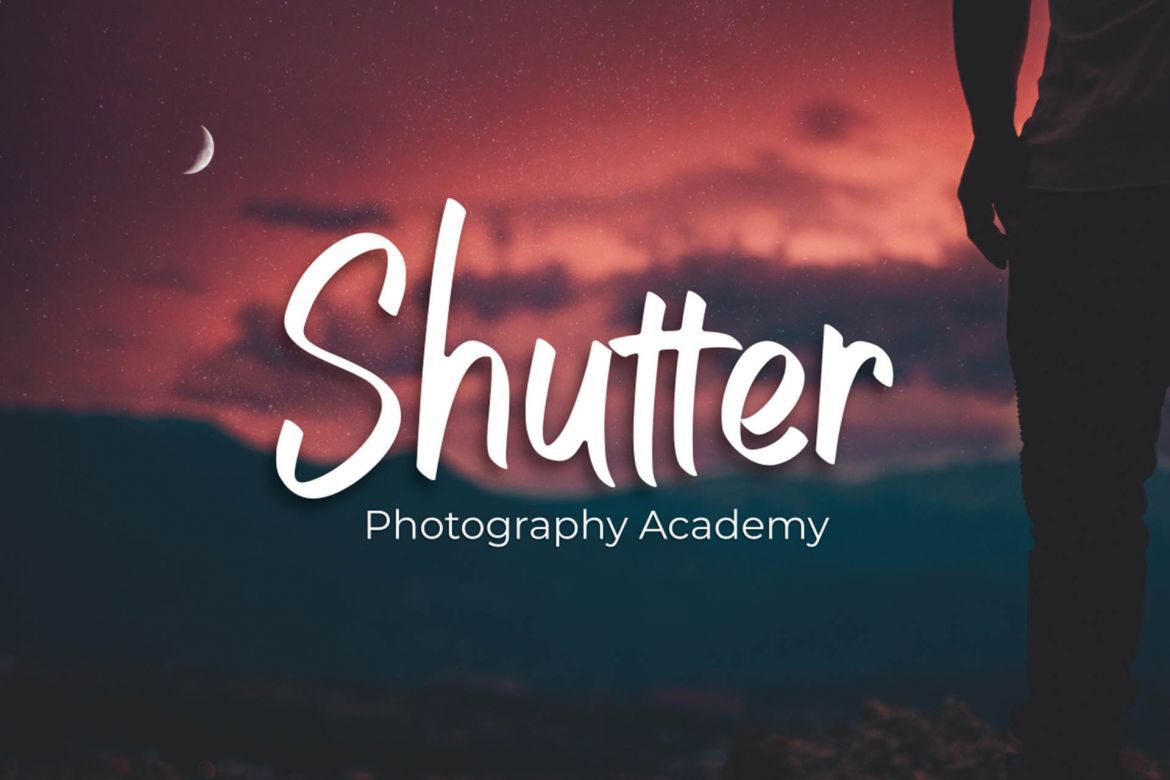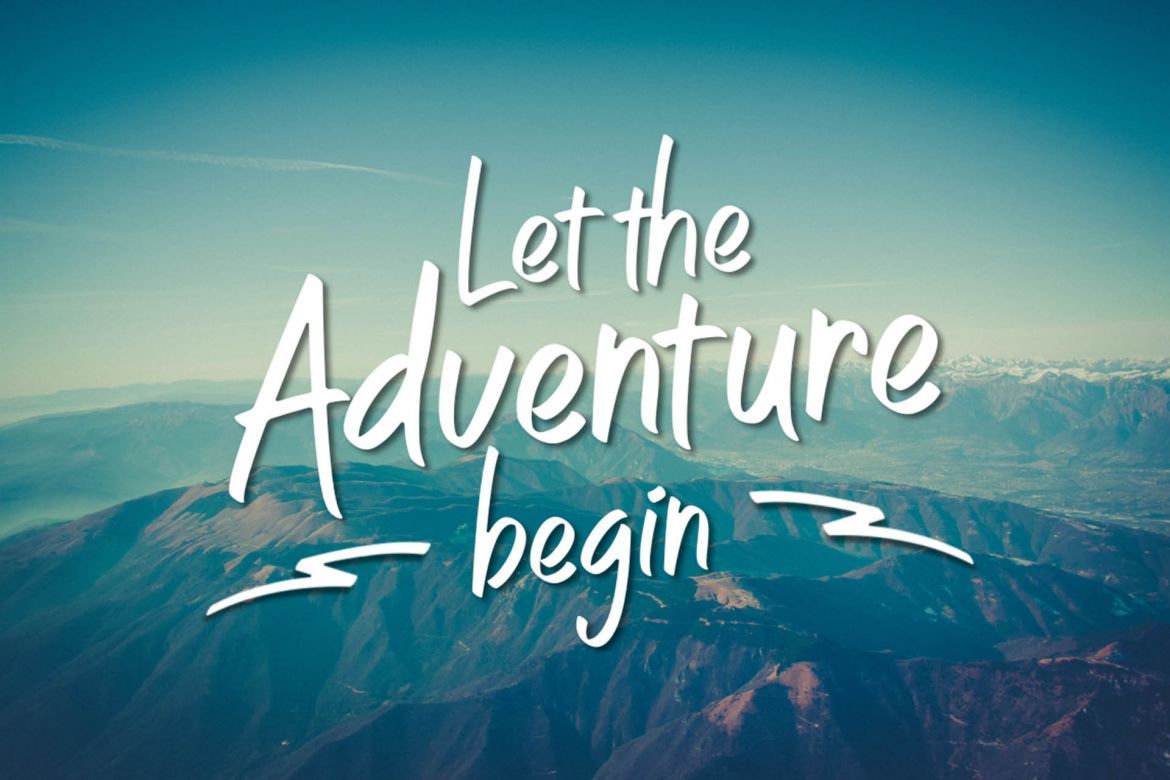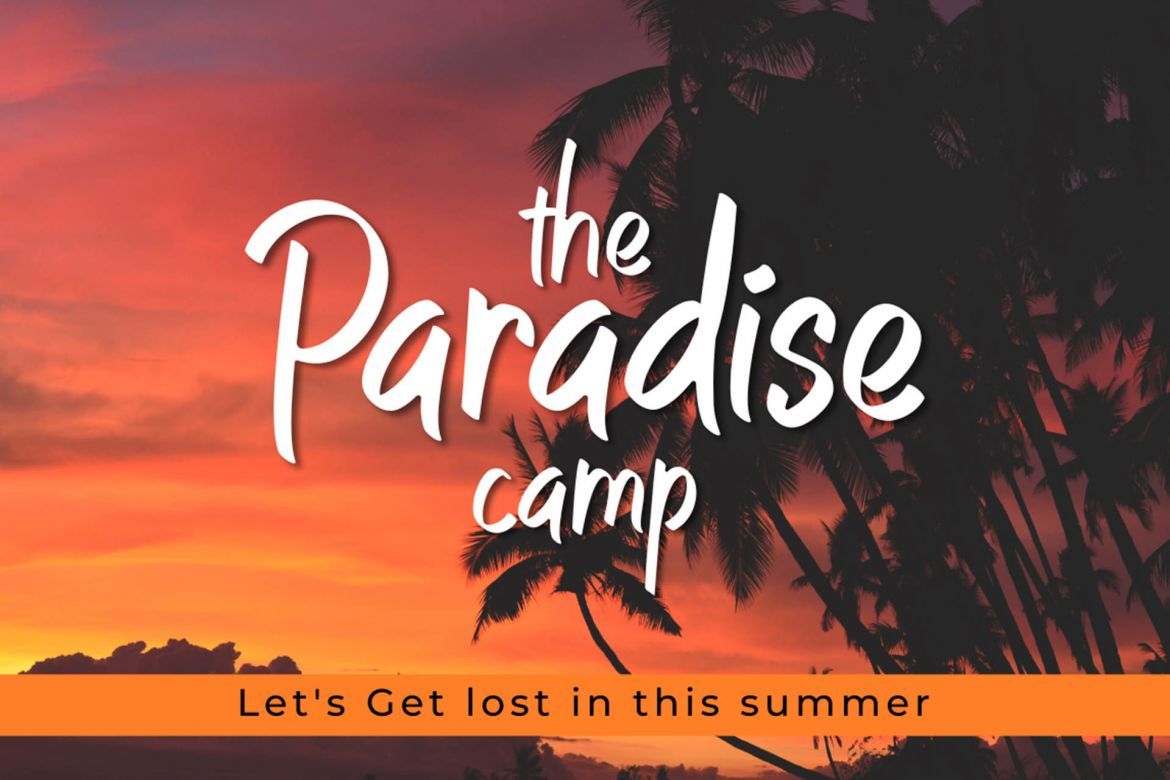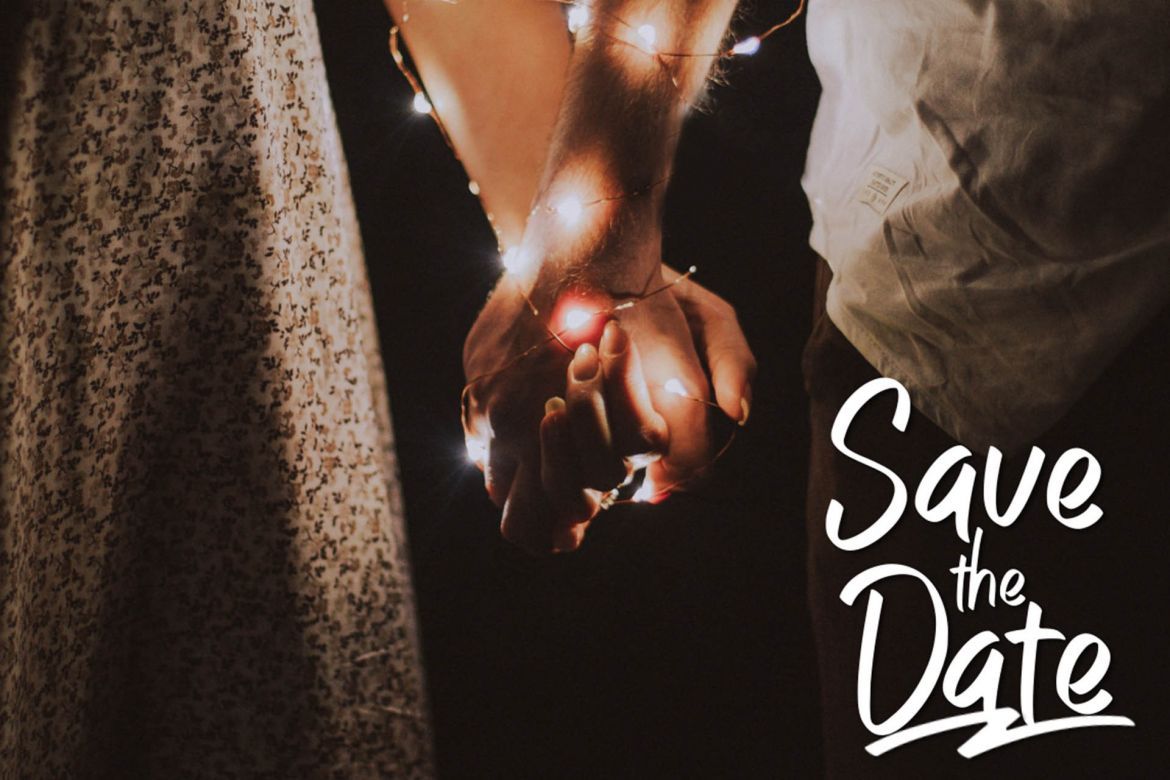
Rayville Font
Rayville is Modern Handwriting script font, it has natural touch in each letter.
It match with any design project, perfect for making statement/quote, social media headline, poster and also look great in logos, titles, postcards, tags and many more.
Rayville comes with variant option of swash that easy to use.
• extra swashes
• natural ligatures